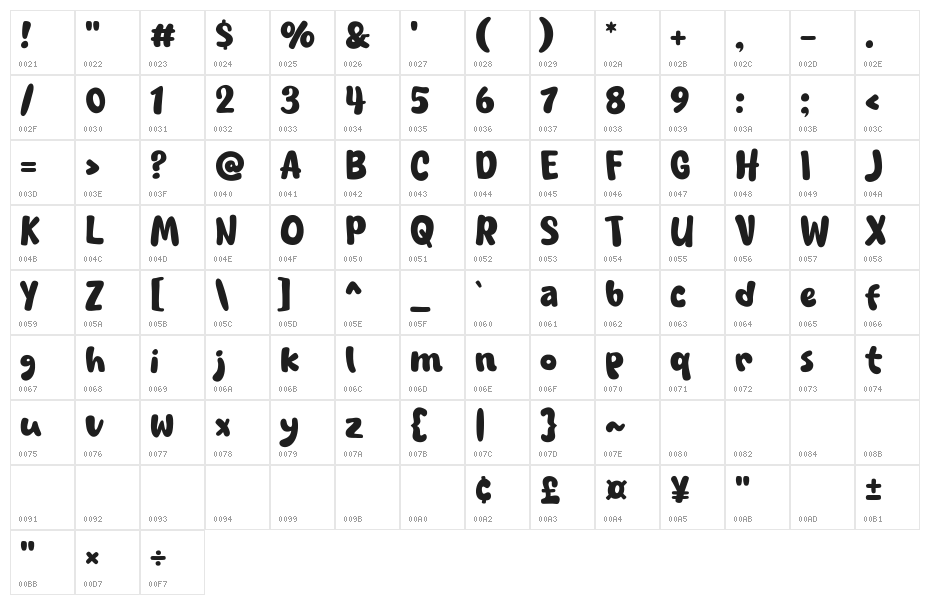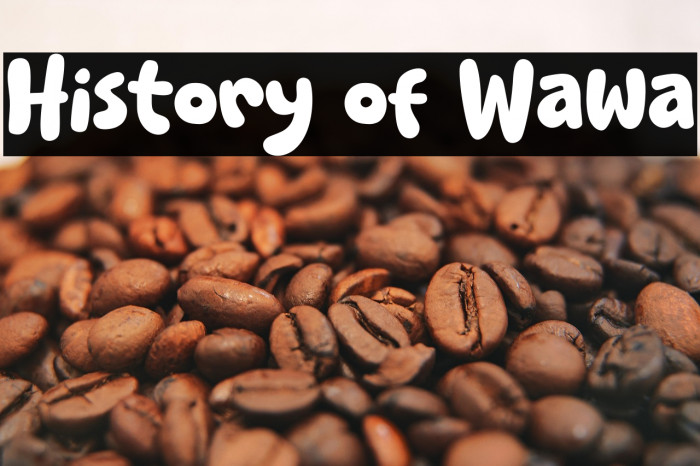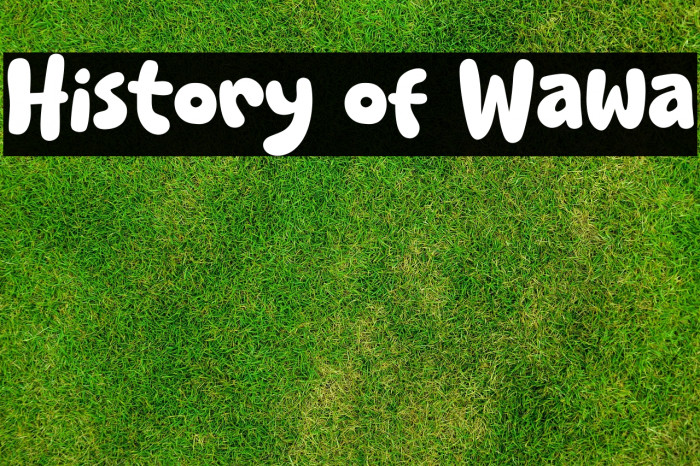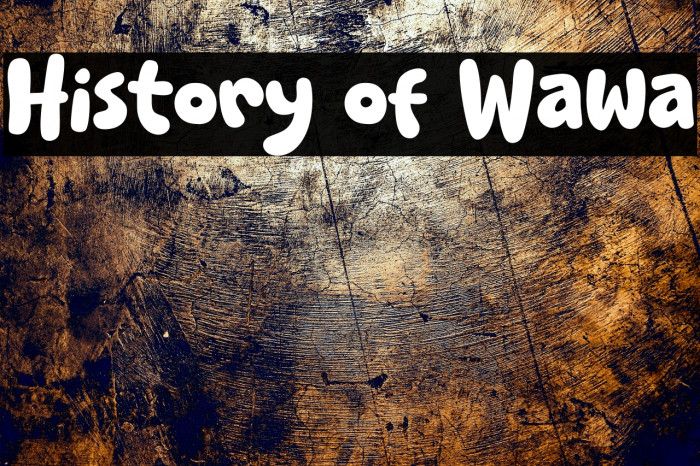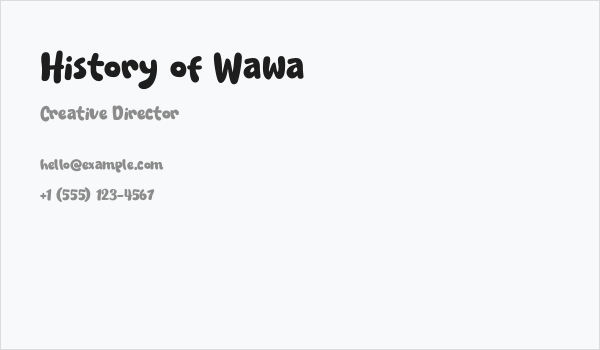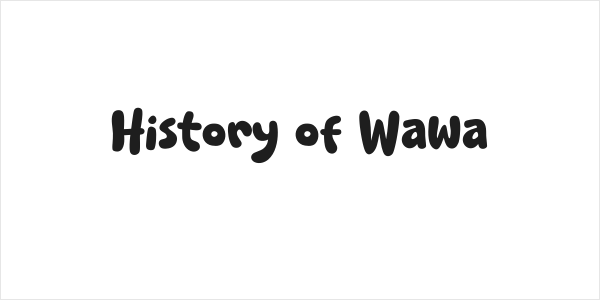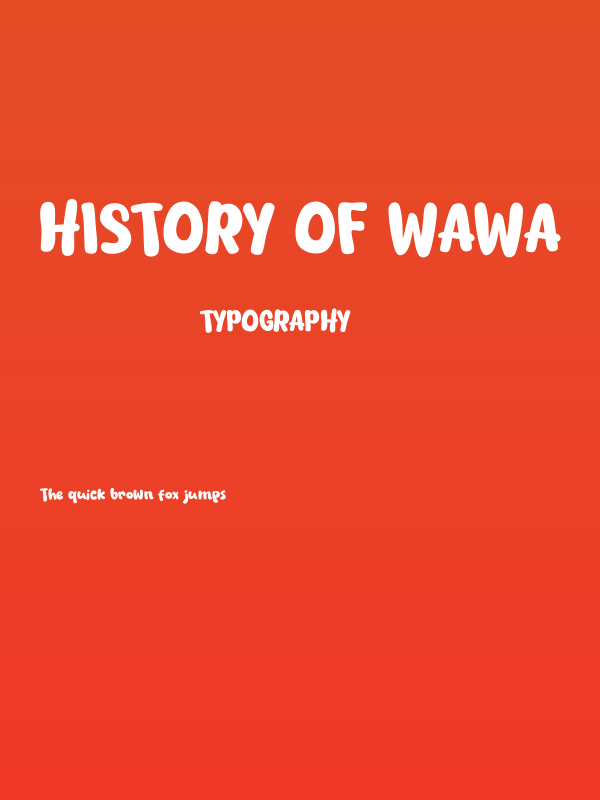
History of Wawa Font
History of Wawa Description
This playful and bold font features rounded, thick strokes that give it a friendly and approachable appearance. The characters are slightly irregular, adding a whimsical touch that makes it stand out. The uppercase and lowercase letters maintain a consistent style, with a slight slant that adds to its casual feel. The numbers and special characters are equally bold and rounded, ensuring uniformity across all glyphs. This font is ideal for projects that require a fun and informal tone, such as children's books, playful branding, or eye-catching headlines.
| Overall Style | Playful, Casual, Whimsical |
| Proposed Projects | Children's books, playful branding, eye-catching headlines, posters, and informal invitations. |